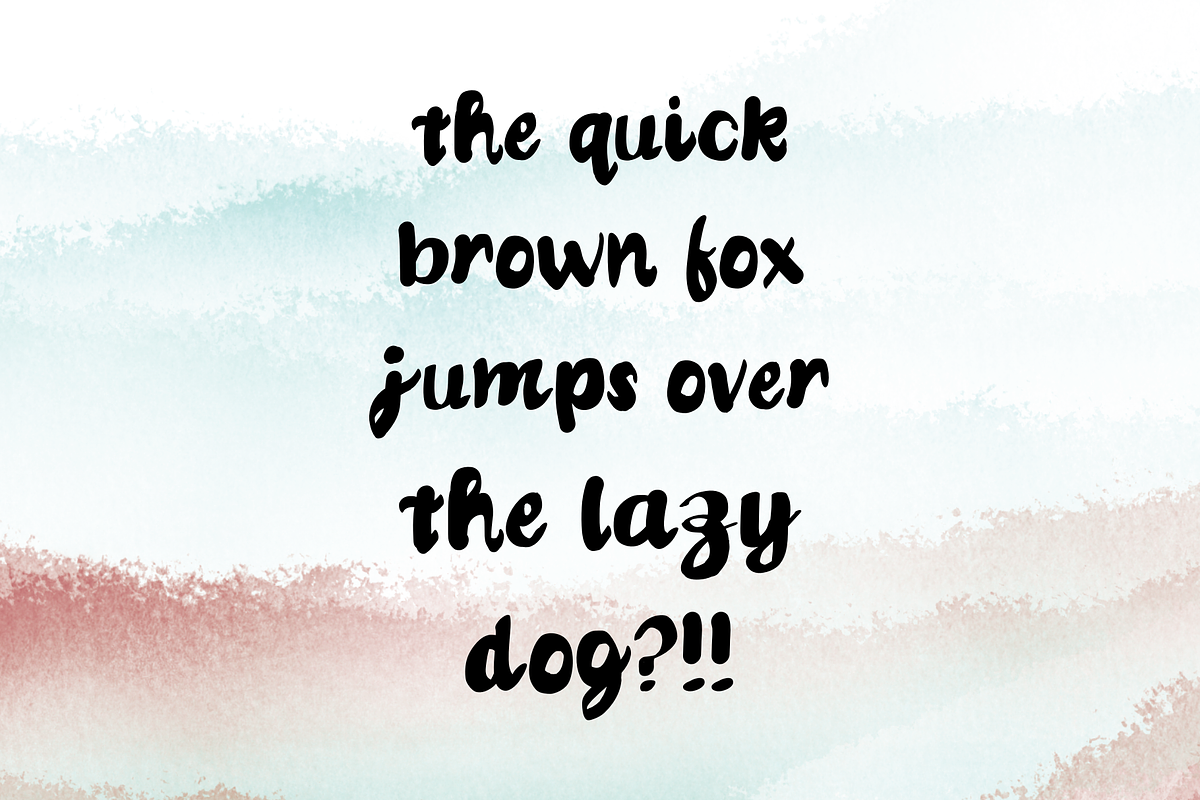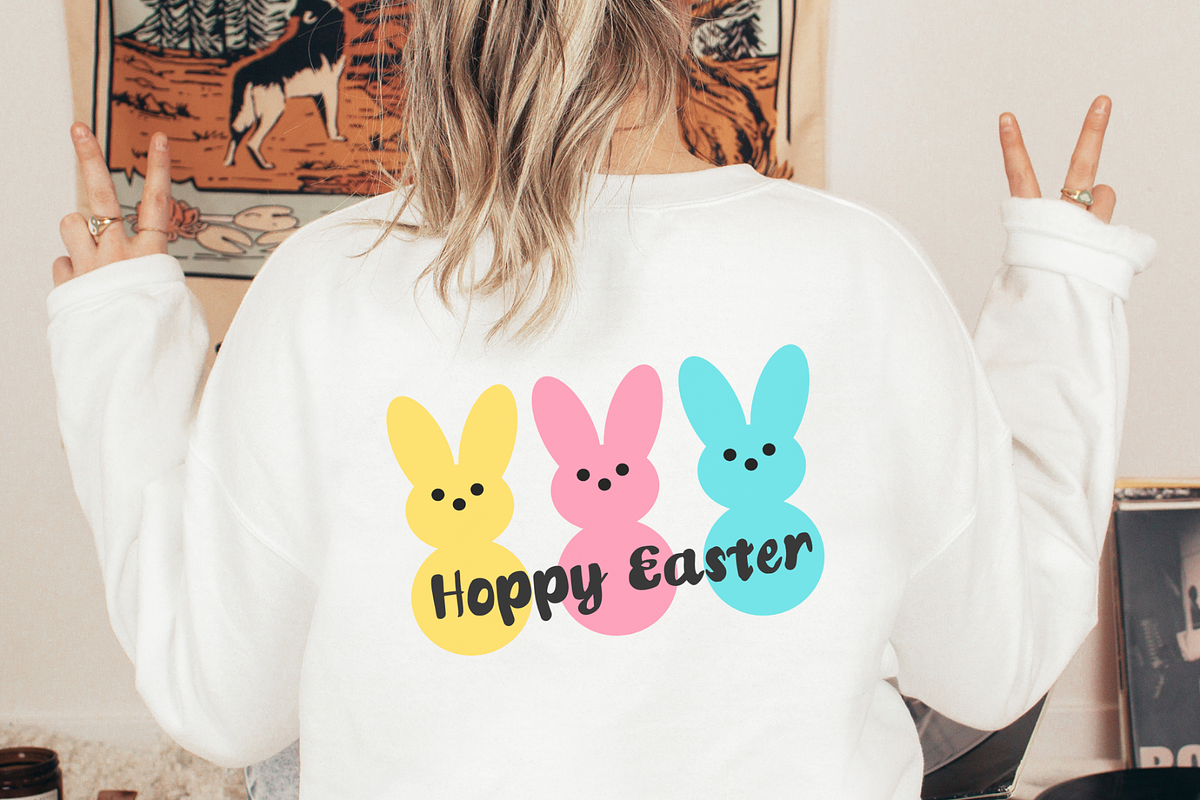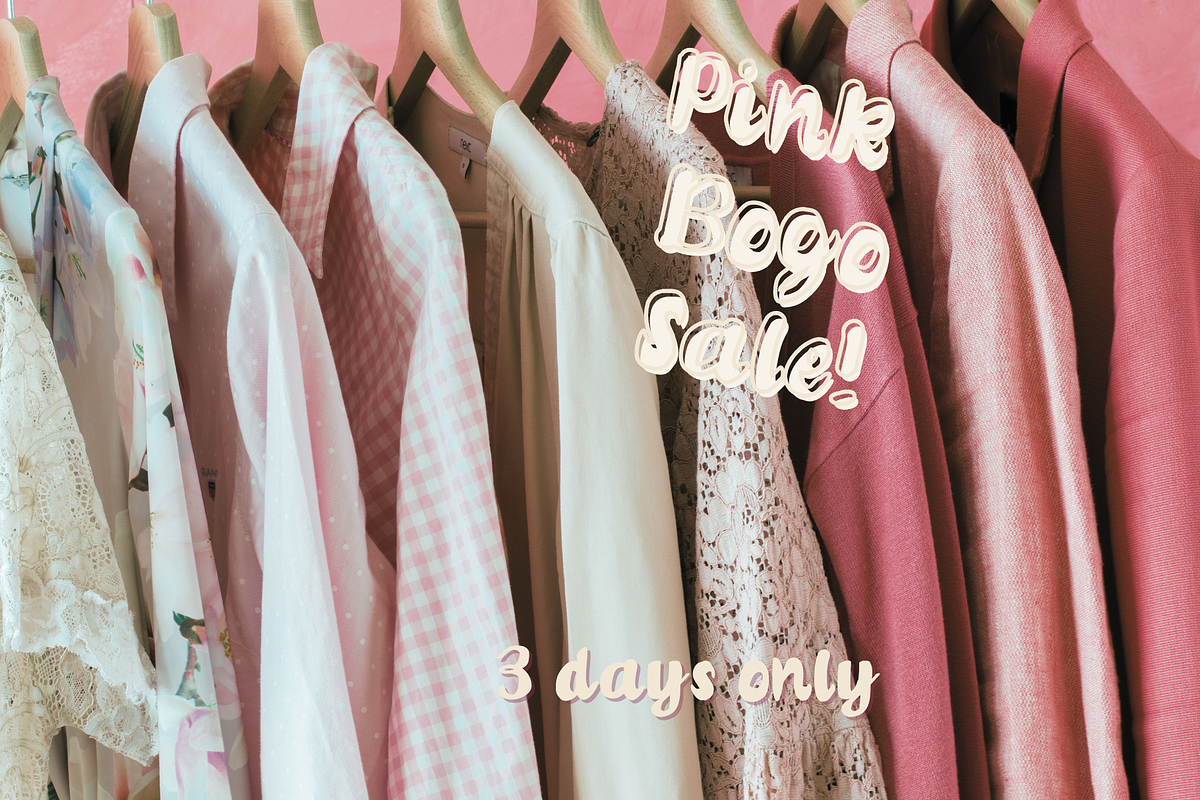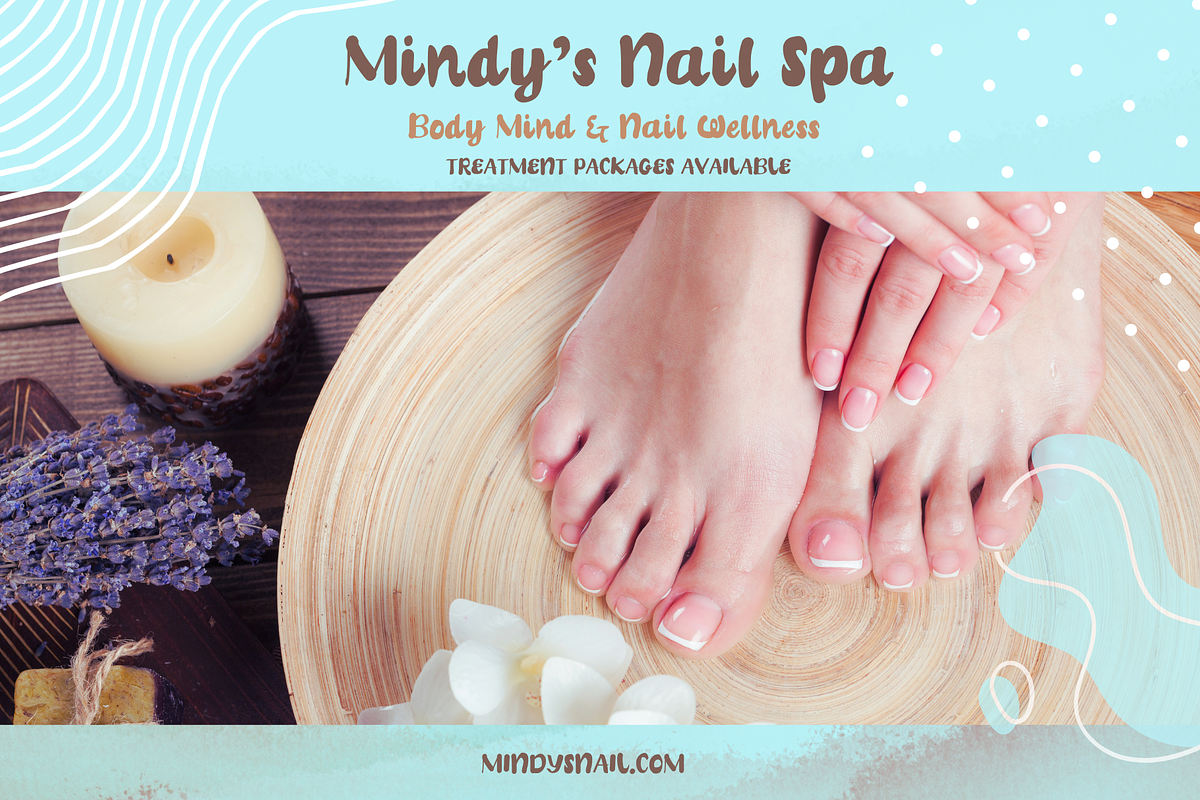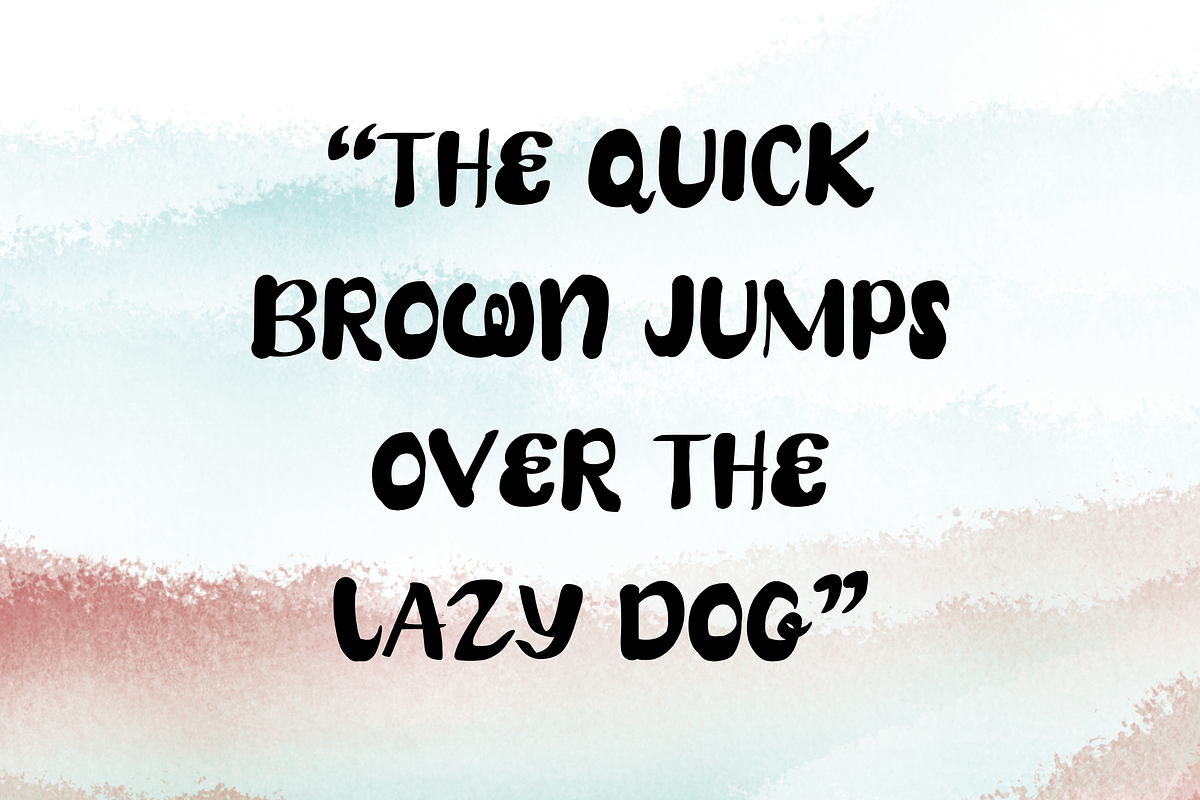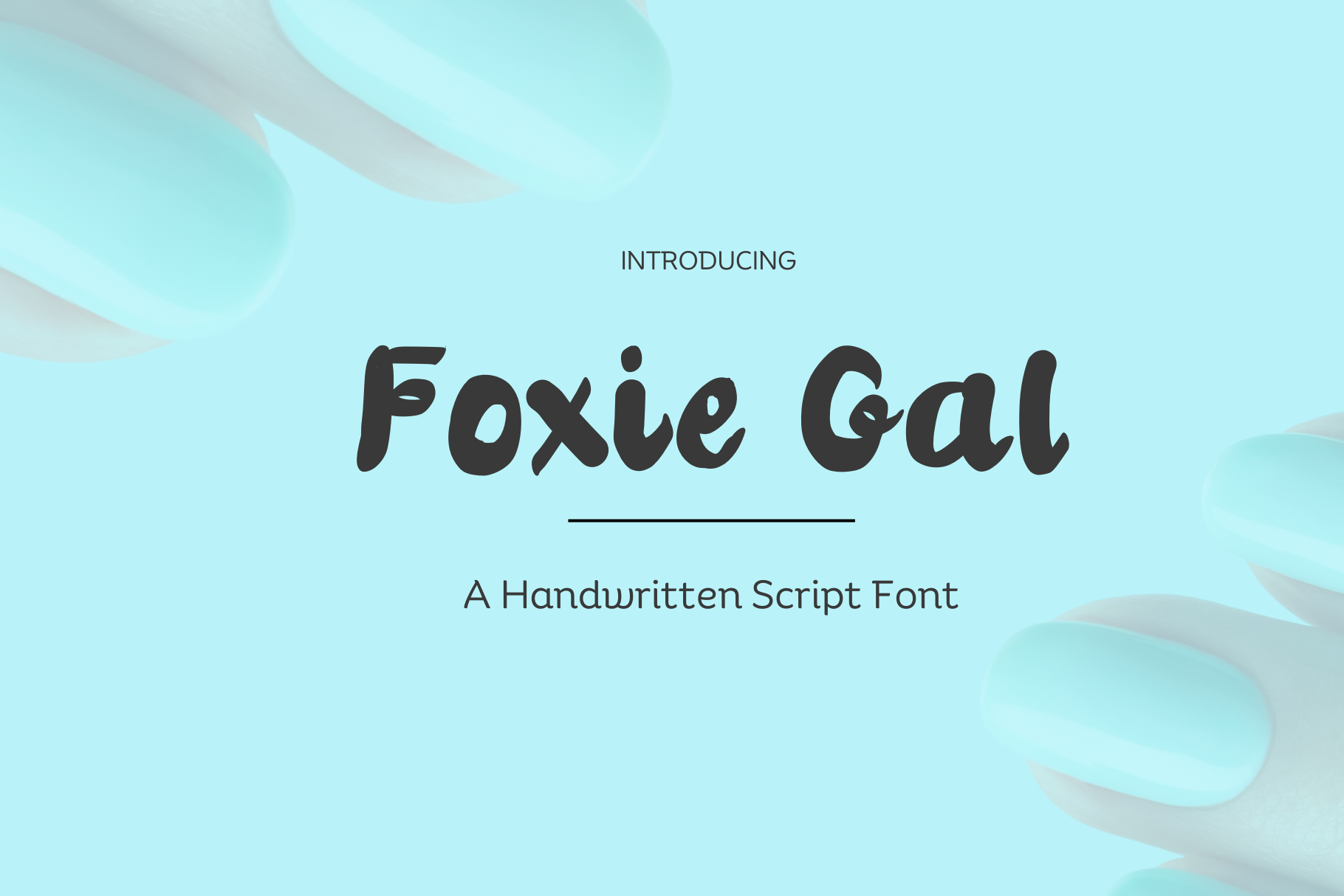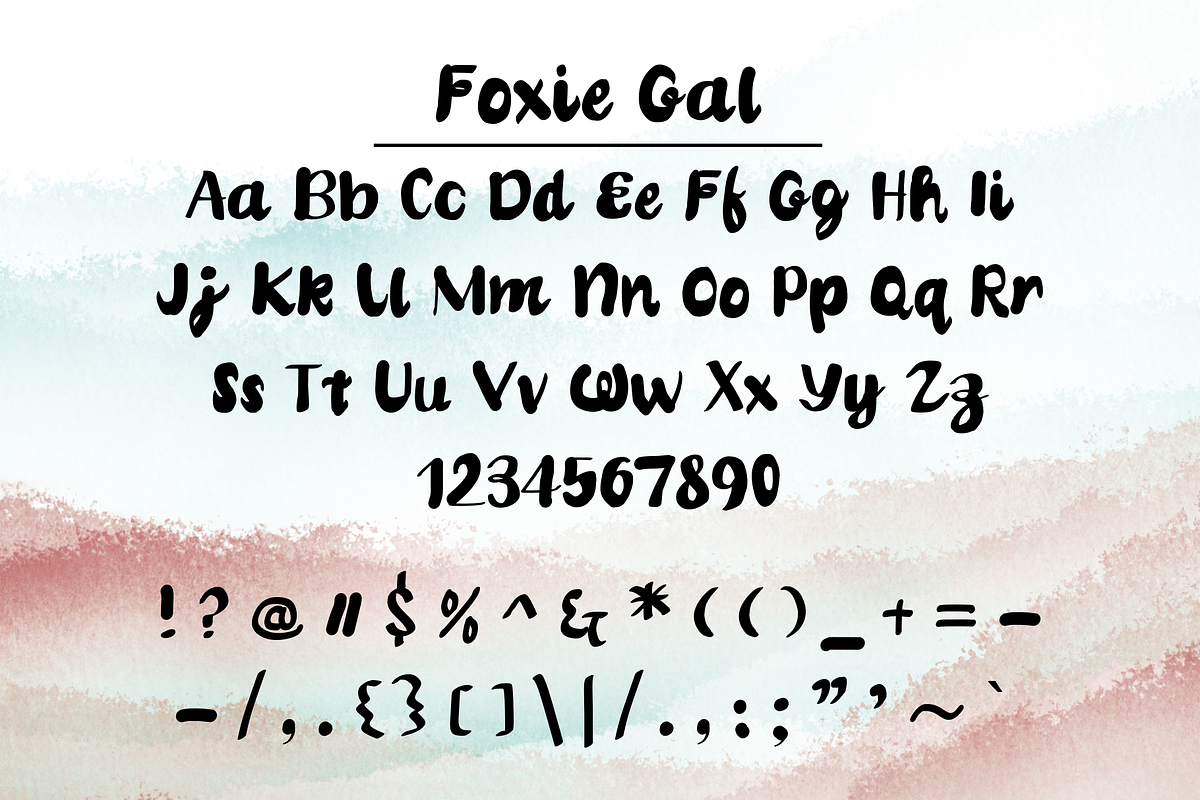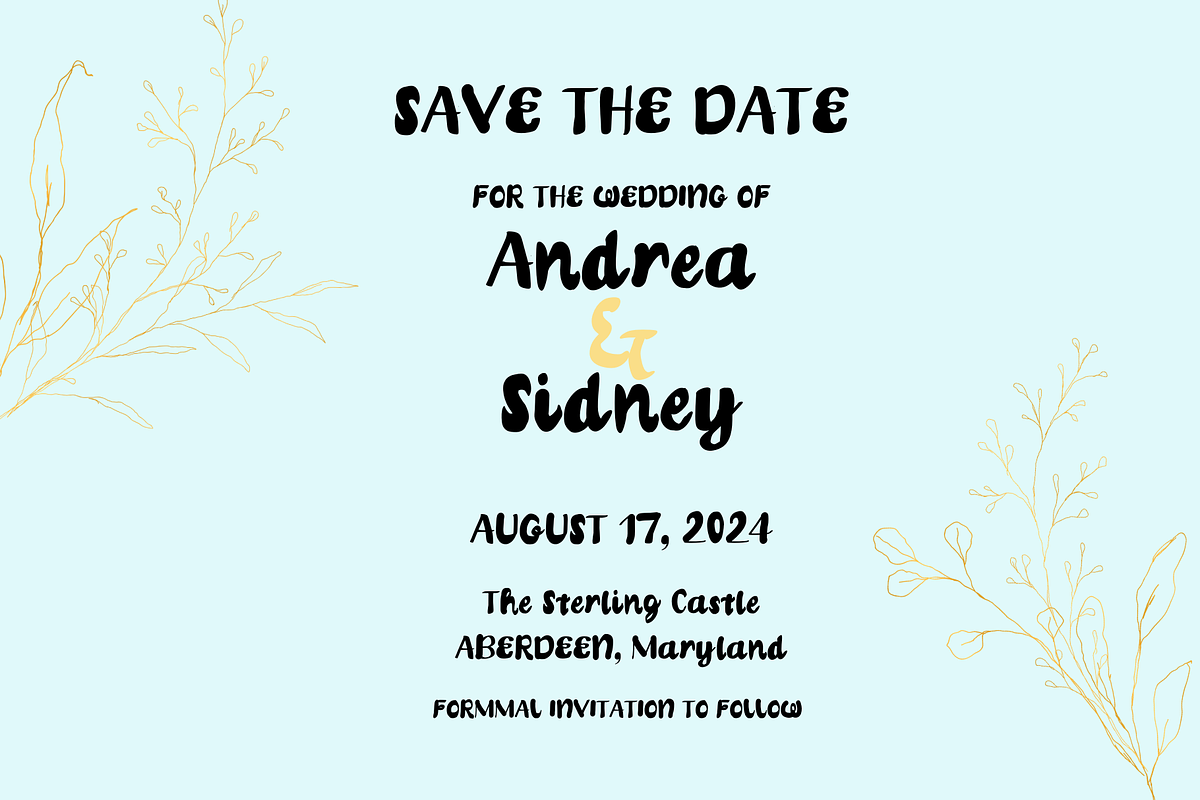
Foxie Gal Handwritten Script Font
Introducing 'Foxie Gal' – a handwritten script font that effortlessly combines a touch of whimsy with modern elegance. Crafted to capture the charm of hand-penned letters, this font is a true embodiment of artistic expression. Each stroke in 'Foxie Gal' tells a story, making it perfect for invitations, branding, social media, and any project that calls for a personal, heartfelt touch. Its fluid, playful, yet sophisticated style makes it incredibly versatile for both digital and print designs. With 'Foxie Gal,' you're not just choosing a font; you're infusing your work with personality and a distinct flair that's bound to captivate and enchant your audience. Let 'Foxie Gal' transform your creative ideas into a beautiful reality!